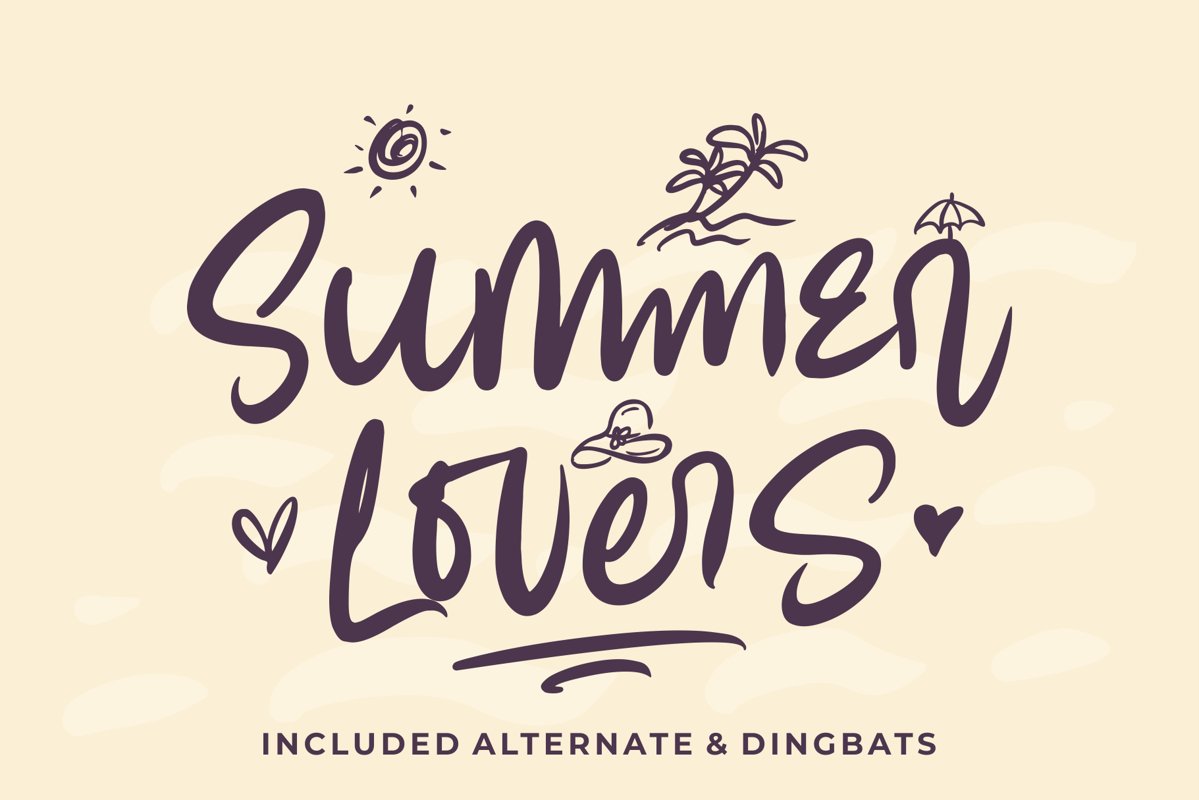
Summer Lovers with Alternate and Dingbat
Summer Lovers is a natural handwritten script font with Alternate Glyphs and Dingbat
This font is perfect for Summer Theme, quotes, shirt designs, mug designs, branding, overlay image,  blogs, logos, invitations, and more!